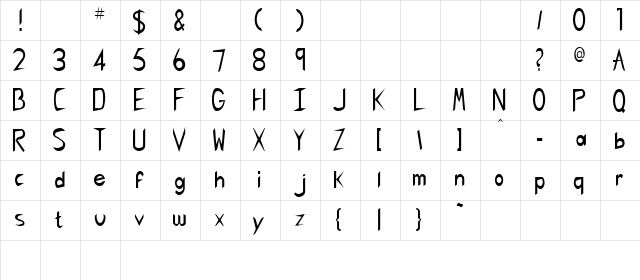
SingaporeCondensed Regular
Design Context for SingaporeCondensed Typeface
SingaporeCondensed is a composed and adaptable typeface that performs quietly and consistently across a wide range of design contexts. The condensed width makes it efficient for tight spaces without sacrificing legibility.